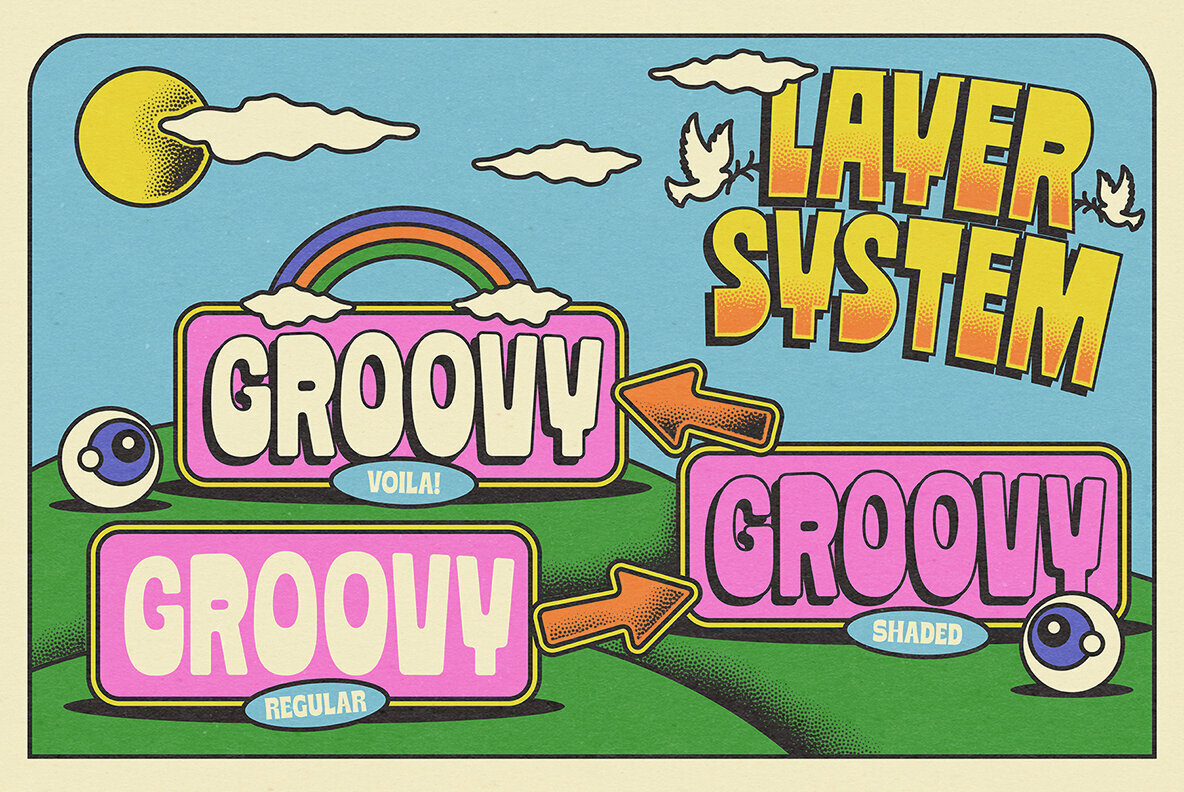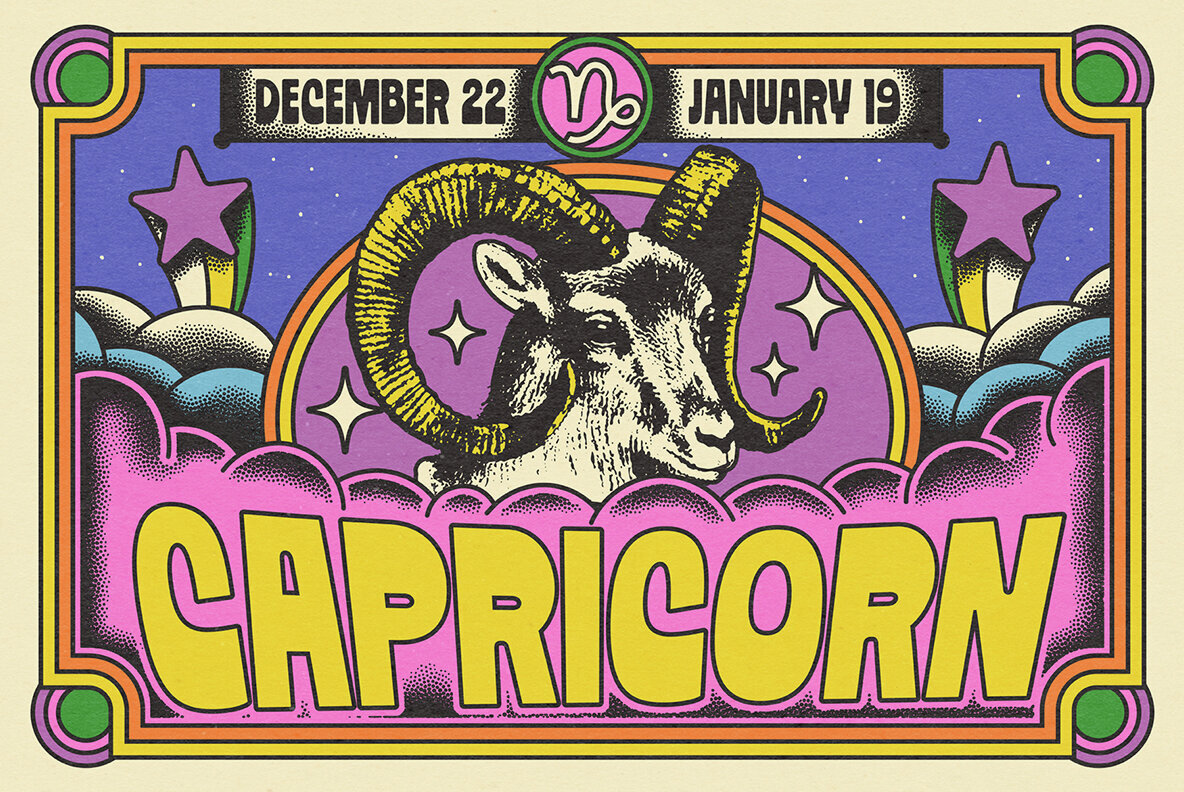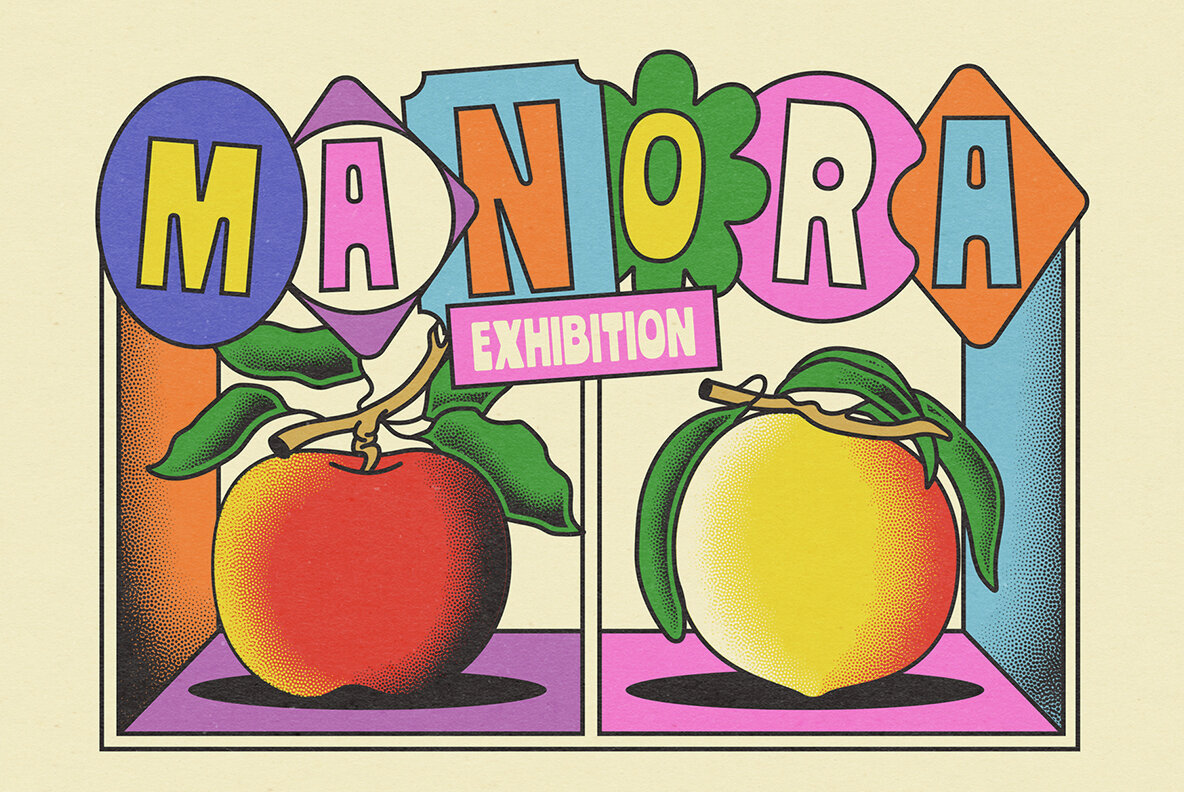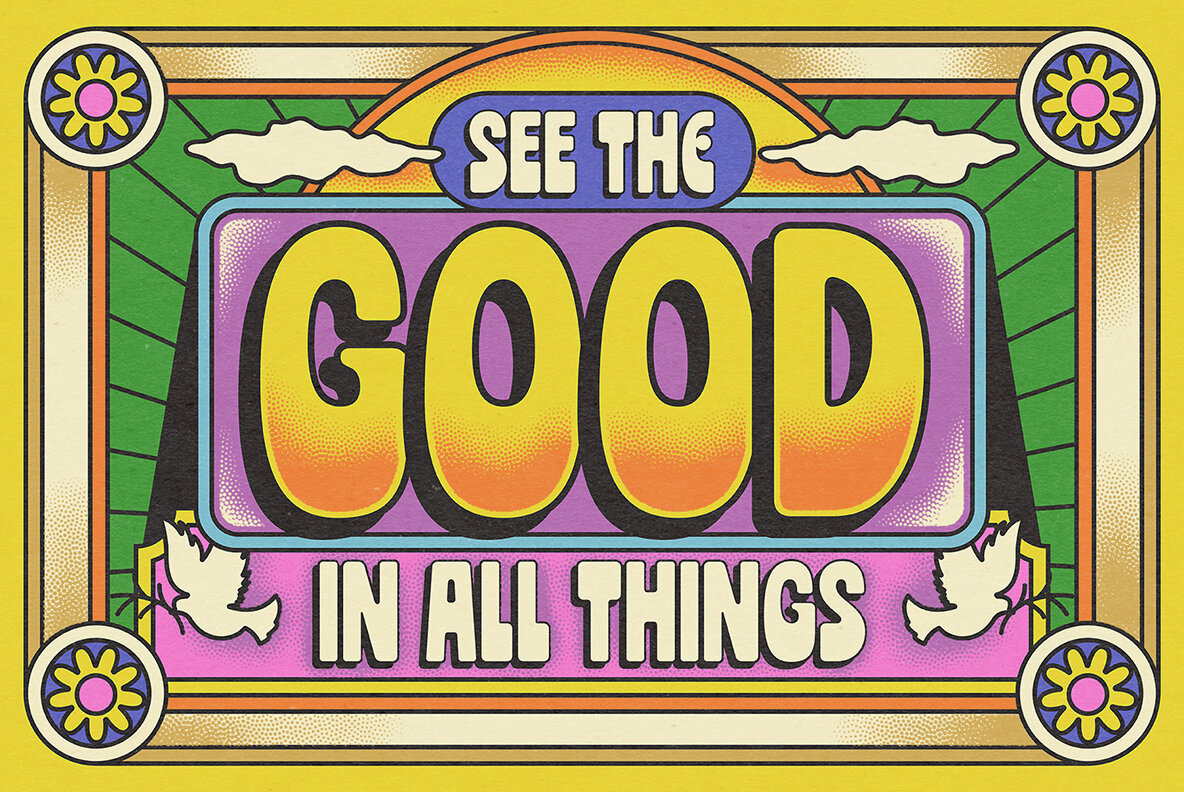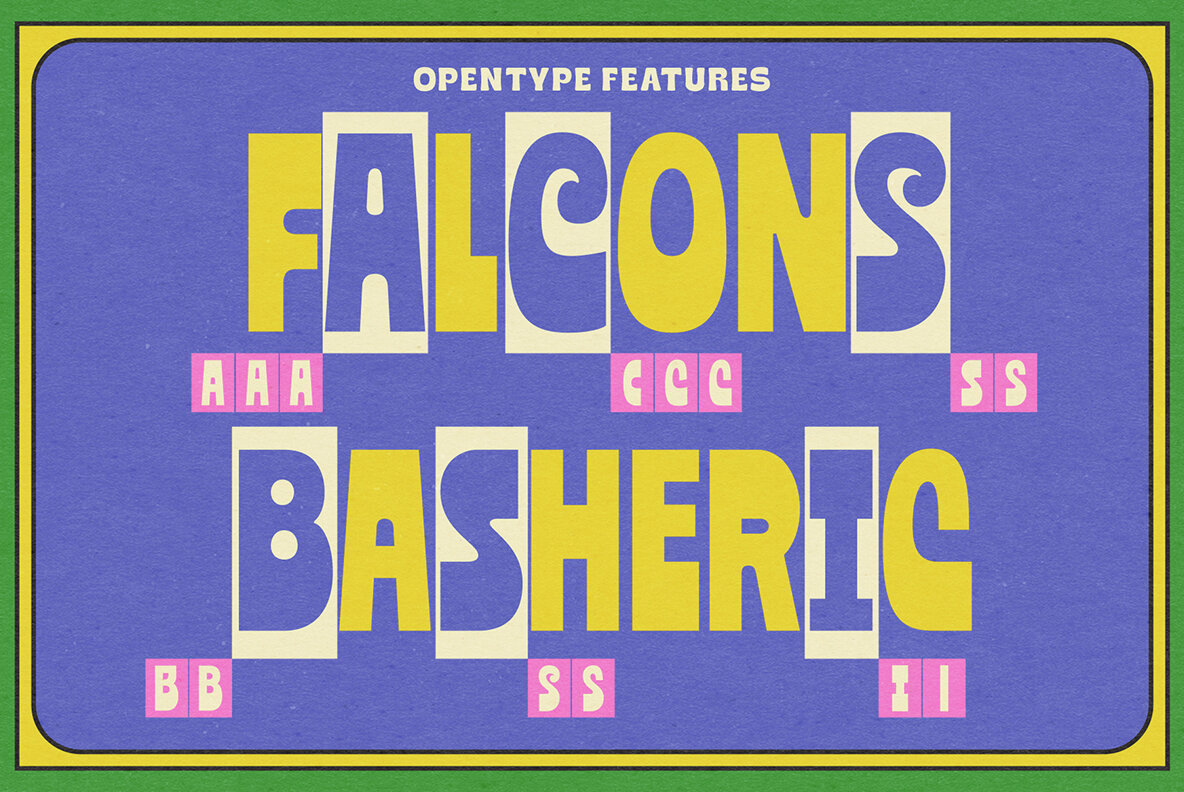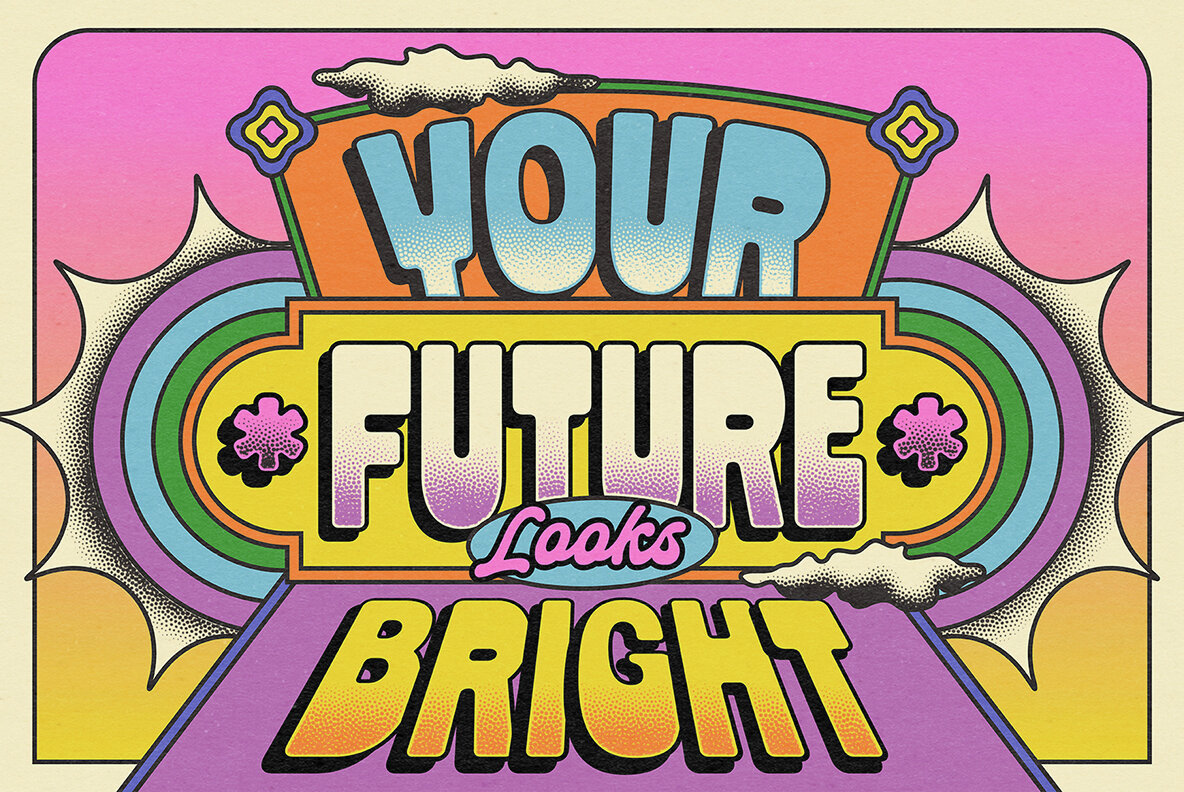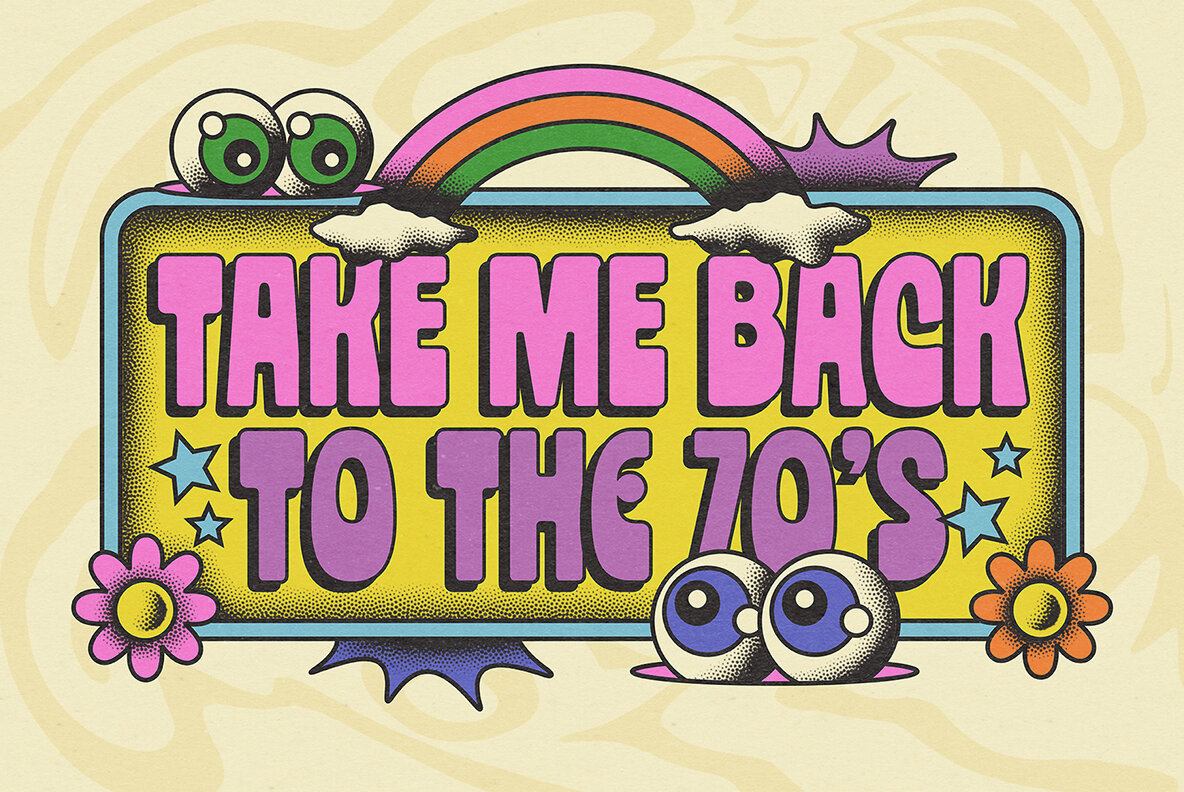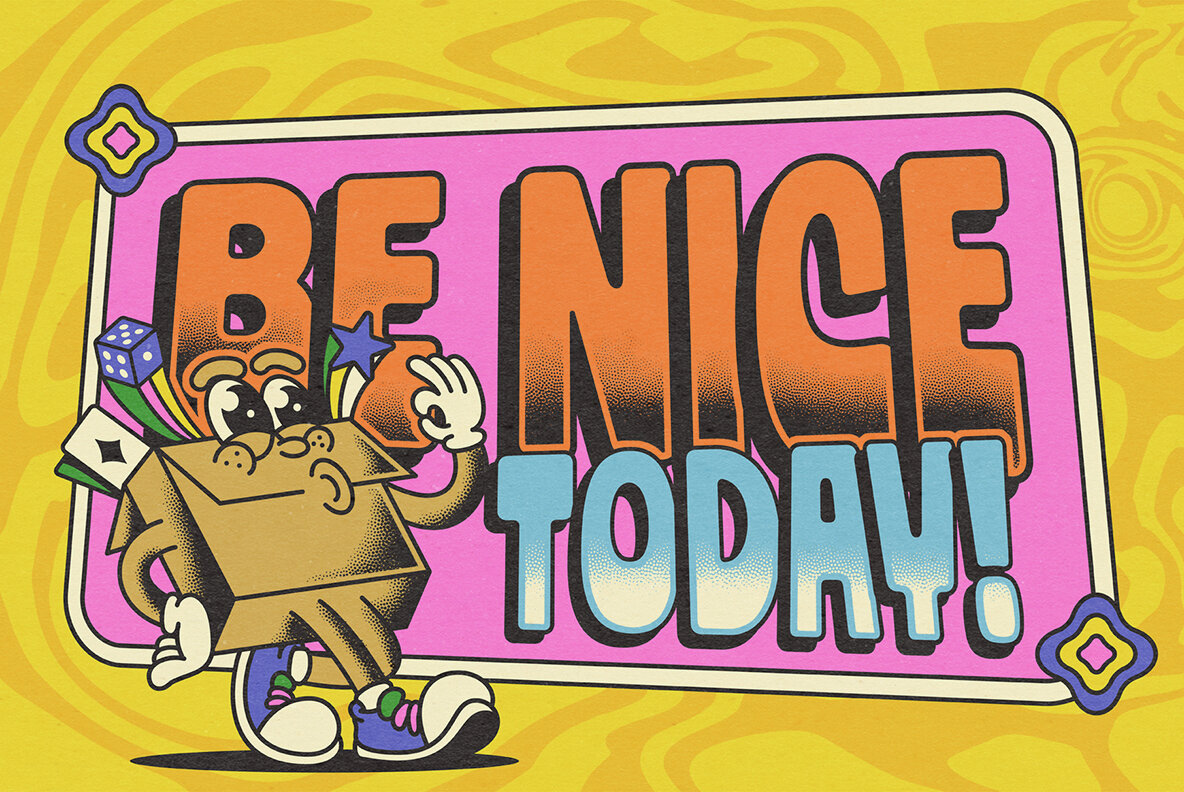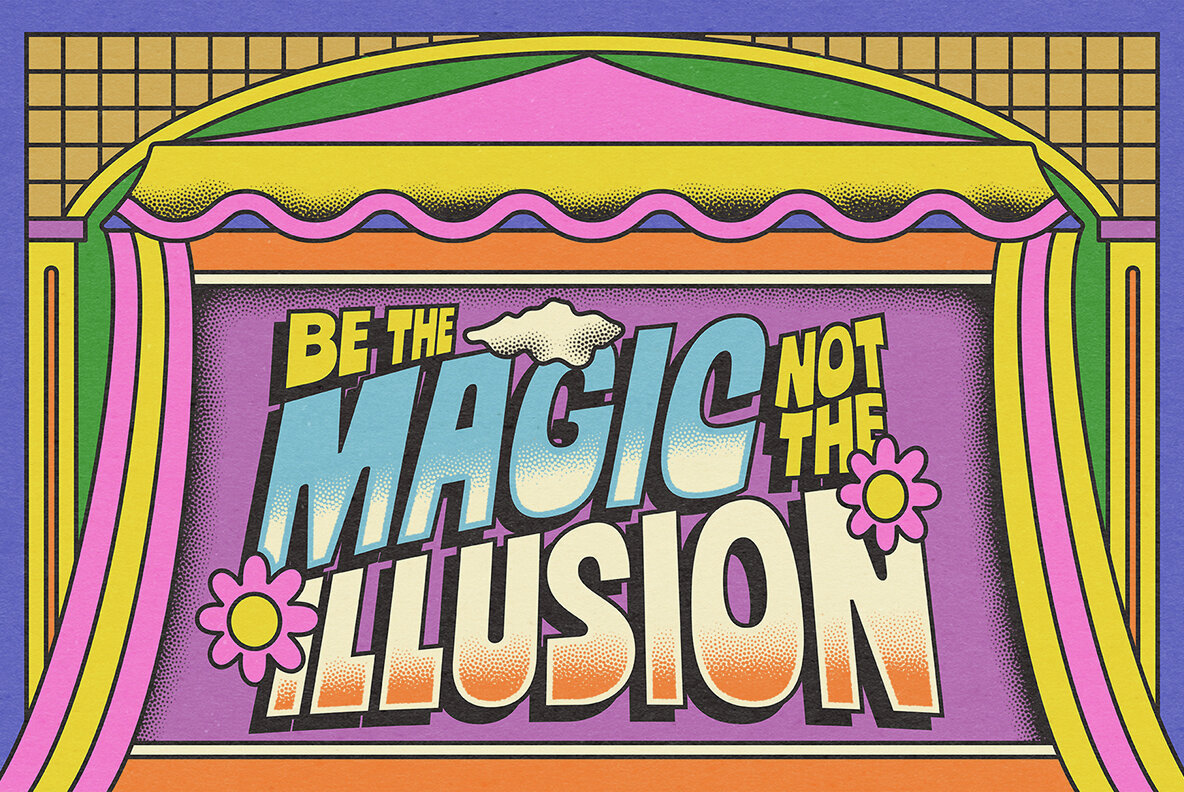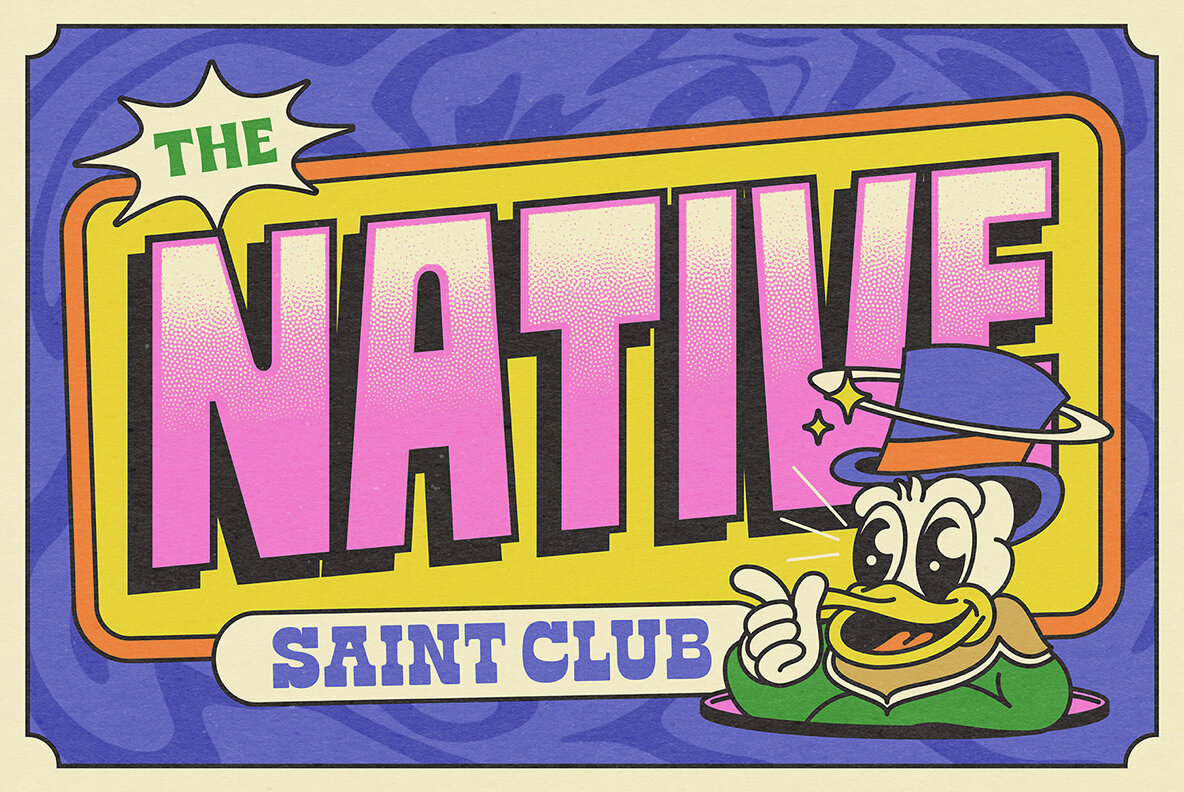
Magic Munchs Font
Magic Munchs Regular
Magic Munchs Regular Shaded
Magic Munchs Rounded
Magic Munchs Rounded Shaded
Step into a vibrant time warp with Magic Munchs, a display font capturing the bold, eclectic spirit of the 1970s. Featuring chunky, eye-catching letterforms with a psychedelic twist, this font is perfect for creating headlines and designs that make a statement. Whether you're working on posters, album covers, or any project that demands attention, Magic Munchs brings a unique retro charm that instantly stands out.
Magic Munchs blends the groovy essence of the past with a modern flair, making it ideal for projects aiming to fuse nostalgia with contemporary style. Use this typeface to infuse your designs with the unforgettable energy of the 70s, creating a distinct and memorable visual impact.